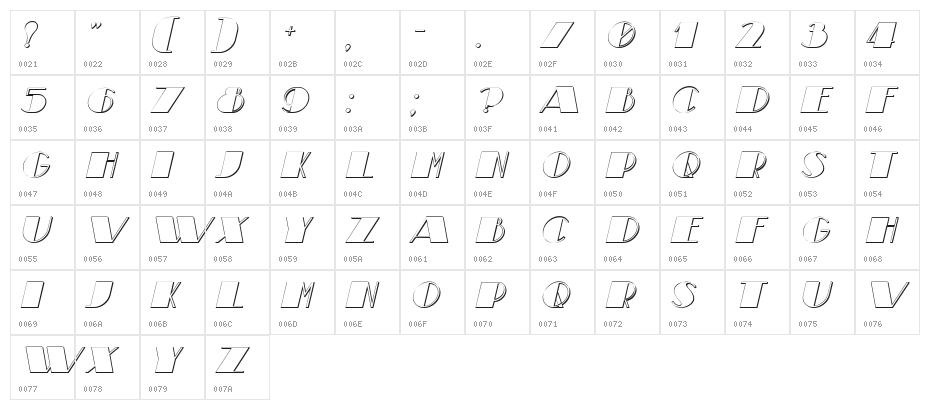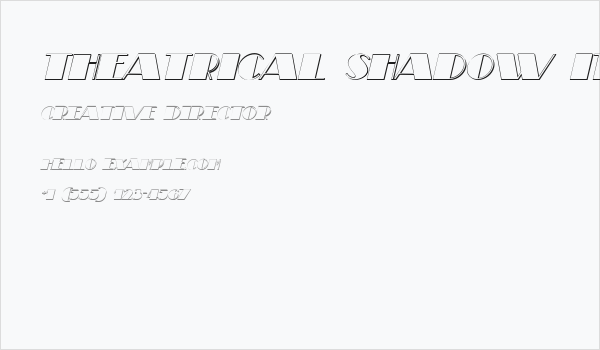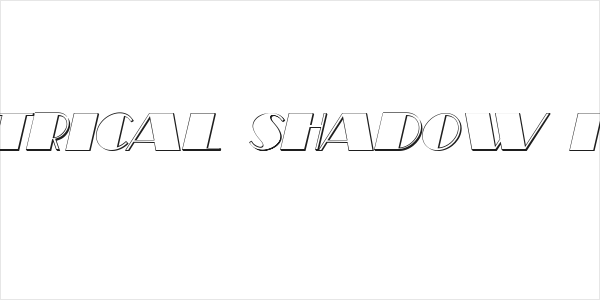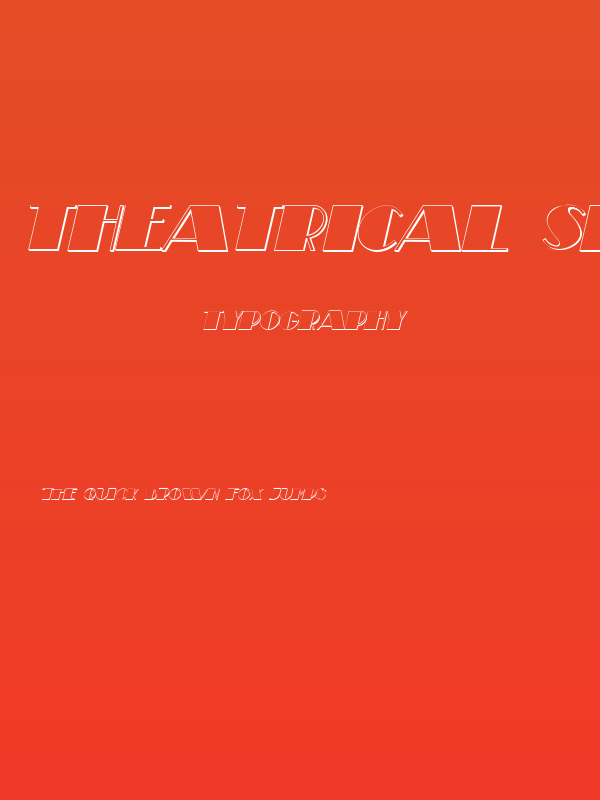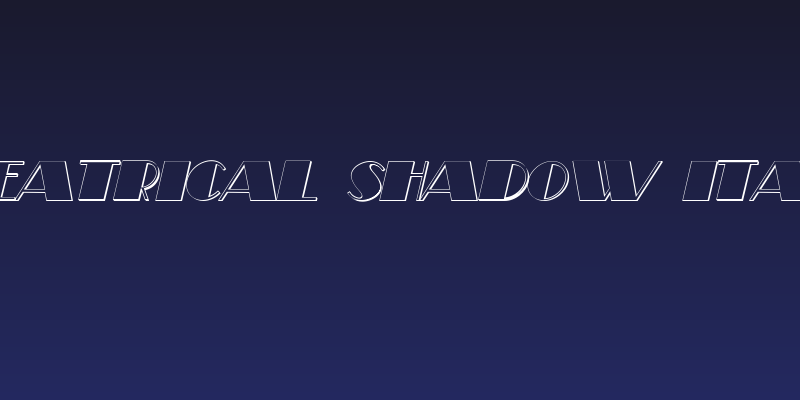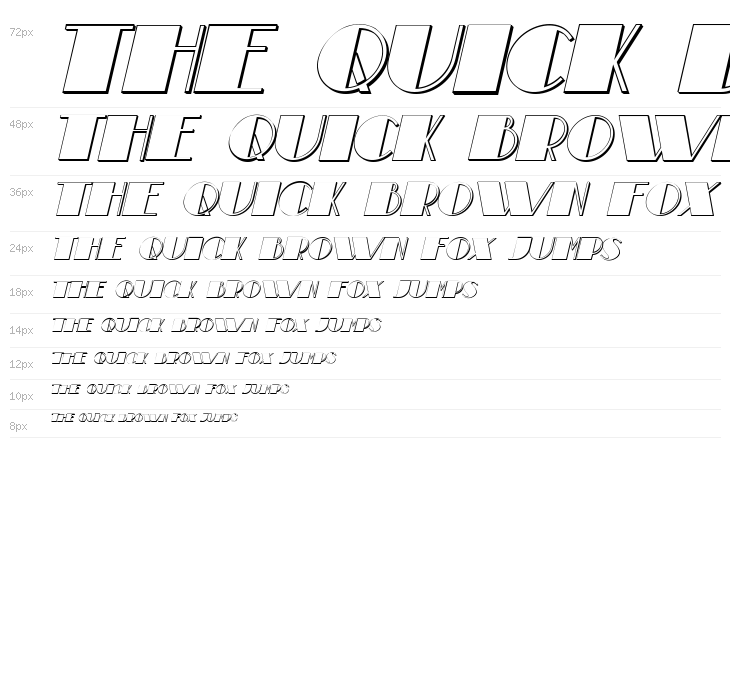
Theatrical Shadow Italic Font
Theatrical Shadow Italic Description
This font features a bold, italicized style with a distinct shadow effect that gives it a three-dimensional appearance. The uppercase and lowercase letters are designed with clean, sharp edges and a slight slant, enhancing the italicized look. The numbers and special characters maintain the same shadowed style, providing a cohesive appearance across all characters. The font's unique shadowing adds depth and drama, making it stand out in any design. Its boldness and slant make it particularly eye-catching, suitable for creative and expressive projects.
| Proposed Projects | Ideal for theatrical posters, creative branding, eye-catching headlines, and artistic designs. |